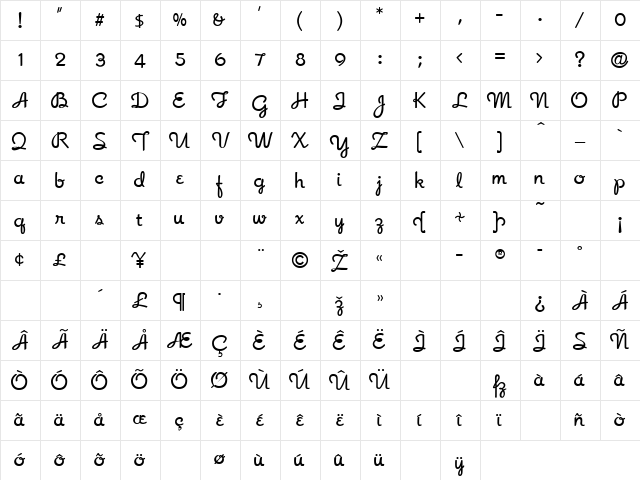
RomanyScript Regular
Foundry: Digitized by Dan X. Solo. Software by Dover Publications, Inc
Design Context for RomanyScript
RomanyScript flows with the natural rhythm of handwritten lettering, making it ideal for designs that call for warmth and personal expression.
Font Pairing: Combine RomanyScript with a simple geometric sans for maximum contrast - the tension between flowing curves and clean structure is a classic typographic pairing.
Pro Tip: Use RomanyScript for short runs of text - names, titles, or taglines. Extended body copy in script faces tires the eye quickly.